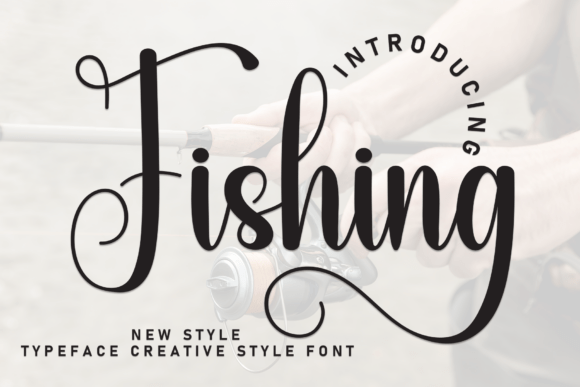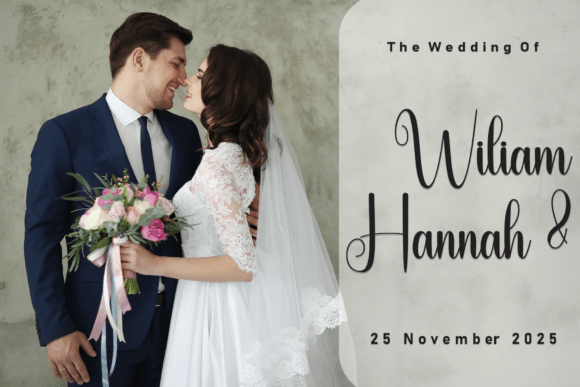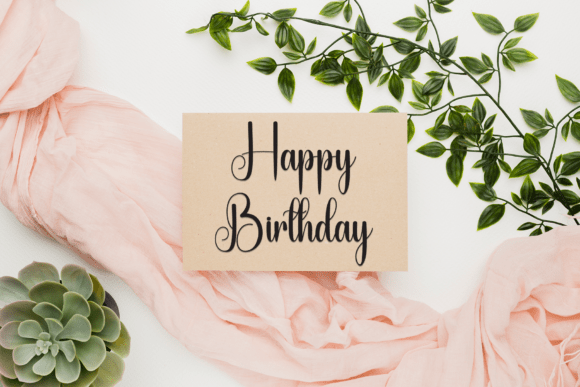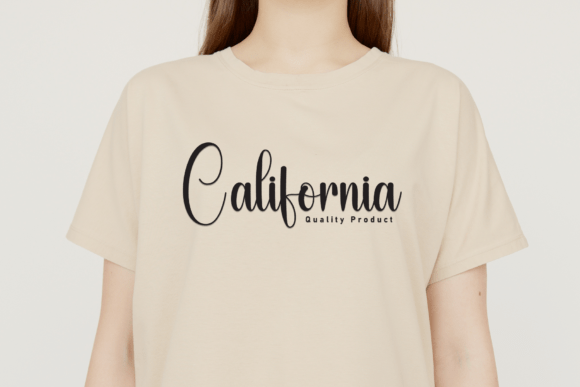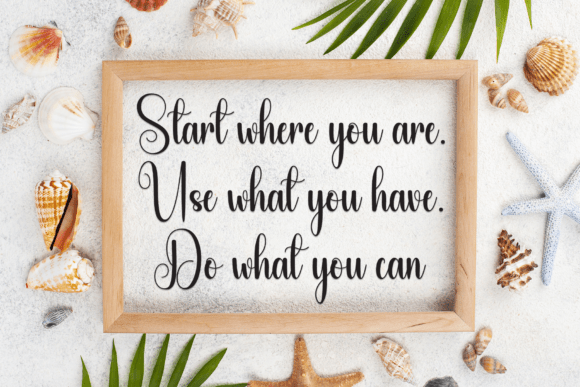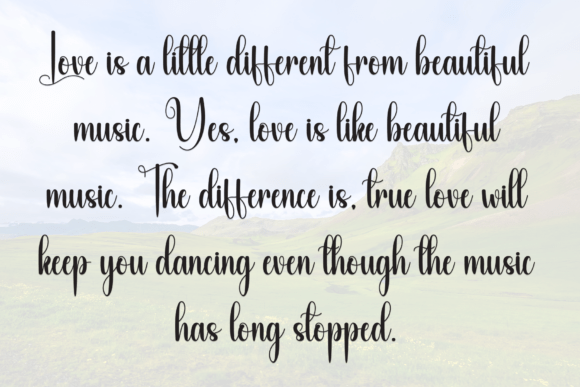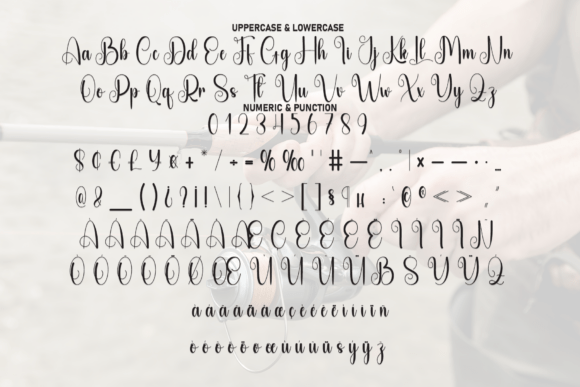
Fishing for Inspiration: The Joy of “Fishing Font”
Remember the moment you first discovered the perfect font for your design project? The excitement of finding the perfect fit, the rush of creativity that follows, and the satisfaction of bringing your vision to life? For designers, these moments are the stuff of dreams. And what if I told you there’s a font that can evoke those same feelings every time you use it?
Enter “Fishing Font”, a delightful display font that’s as charming as a handwritten note from a loved one. Its playful and whimsical essence makes it an ideal choice for wedding invites, greeting cards, and any design project that needs a dash of fun. With its lovable appeal, “Fishing Font” is sure to sprinkle joy onto any creative endeavor.
Fishing Font Key Features
- Unique Characteristics: Fishing Font features a unique, hand-drawn design with a nostalgic feel, making it perfect for fishing-themed designs, outdoor brands, and vintage-inspired projects.
Fishing Font Review
Fishing Font is a unique and quirky typeface that’s sure to catch the eye of any design enthusiast. ✨ The font’s hand-drawn, whimsical feel makes it perfect for branding and marketing materials that need a touch of personality. ✨ The font’s bold lines and playful flourishes also make it an excellent choice for creating eye-catching signage and advertisements.
- Unique and quirky design that stands out from the crowd
- Perfect for branding and marketing materials that need a personal touch
- Great for creating eye-catching signage and advertisements
However, there are some limitations to consider. ⚠️ The font’s hand-drawn feel can sometimes make it difficult to read, especially in smaller sizes or at a distance. ⚠️ Additionally, the font’s bold lines and flourishes can make it look cluttered if not used sparingly.
Fishing Font is a great choice for designers who want to add a touch of personality to their projects. While it may not be suitable for all types of design, it’s a great option for those looking for a unique and eye-catching typeface.
Fishing Font is commonly used in designs that require a playful or whimsical touch, such as: